1. Introduction
Every Font Personality Meaning tells a story. The curves, strokes, and spacing of a typeface are more than visual design — they’re emotional cues that influence how people feel about your message. Whether you’re building a brand, designing a logo, or crafting marketing materials, understanding Font Personality Meaning is essential to making your typography truly speak.
In this article, we’ll explore how font personality works, why it matters in branding, and how to select fonts that align with your brand’s tone and identity.
2. What Is Font Personality?
Font personality refers to the emotional traits and characteristics that a typeface conveys. Just like humans have personalities — confident, friendly, elegant, or bold — fonts project similar impressions through their design.
For example:
- A serif font often feels traditional and trustworthy.
- A script font feels elegant or romantic.
- A sans-serif font looks modern and clean.
- A display or decorative font can feel playful, adventurous, or unique.
In short, font personality bridges the gap between design and emotion.
3. The Psychology Behind Fonts
The study of font psychology shows that typefaces can subconsciously affect how we perceive information. According to research from the University of Michigan and MIT, people form impressions about trustworthiness, reliability, and creativity based on typography alone.
For example:
- Rounded fonts tend to evoke friendliness and warmth.
- Sharp-edged fonts often communicate strength and precision.
- Thin fonts can suggest elegance or sophistication.
These subtle cues help brands establish emotional connections before a single word is even read.
4. How Font Personality Meaning Shapes Brand Perception
Your chosen font becomes the voice of your brand. A mismatch between font personality and brand values can create confusion and weaken trust.
For instance:
- A financial company using a comic-style font might appear unprofessional.
- A luxury fashion brand using a bold sans-serif might lose its high-end appeal.
When font personality aligns with brand tone, it strengthens recognition and builds emotional loyalty. Typography, in this sense, is silent branding.
5. Common and Their Font Personality Meaning
Here are some popular font personalities and what they typically express:
| Font Type | Personality Traits | Best Used For |
|---|---|---|
| Serif Fonts | Traditional, reliable, academic | Law firms, publishers, luxury brands |
| Sans-Serif Fonts | Modern, clean, approachable | Tech startups, lifestyle brands |
| Script Fonts | Elegant, personal, creative | Fashion, beauty, invitations |
| Slab Serif Fonts | Strong, bold, confident | Sports brands, industrial companies |
| Display Fonts | Unique, expressive, artistic | Logos, posters, entertainment brands |
6. Choosing the Right Font Personality Meaning for Your Brand
When selecting a font, consider these factors:
- Brand identity: What emotions do you want your audience to feel?
- Audience type: Who are you communicating with?
- Medium: Is it for web, print, or packaging?
- Legibility: Even a stylish font must be readable.
A good rule of thumb: choose two complementary fonts — one for headlines and one for body text — that share a similar personality but different strengths.
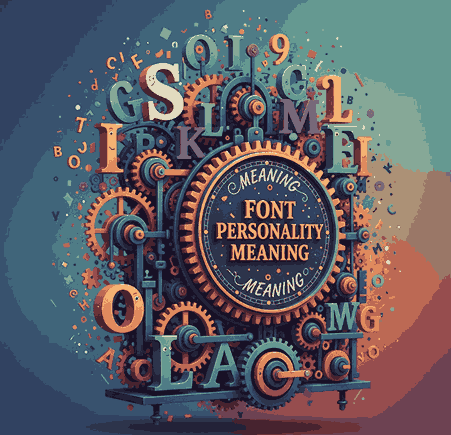
7. Real Examples from Edric Studio Font Personality Meaning
At Edric Studio, we design fonts with distinct personalities to help brands tell their stories effectively. Below are some examples that demonstrate font personality in action:
- Battlesbridge Font: A bold, handcrafted serif that exudes confidence and sophistication — ideal for brands with strong authority.
- North Mount Trio Style: A versatile typeface set with script and serif variations, symbolizing creativity and flexibility.
- Perky Area Slab Serif Font: This sturdy slab serif communicates strength and reliability — perfect for industrial or tech-oriented projects.
- Xharp Futuristic Modern Font: Sleek and modern, this font captures innovation and progress — a great choice for futuristic branding.
Each of these fonts has its own “voice,” making them great examples of how font personality can shape perception and identity.
8. Final Thoughts
Understanding Font Personality Meaning isn’t just about picking what looks good — it’s about aligning your visual voice with your message. Fonts carry emotion, tone, and style, influencing how people perceive your brand at first glance.
When you choose the right font, you’re not just designing text — you’re designing trust, emotion, and connection.